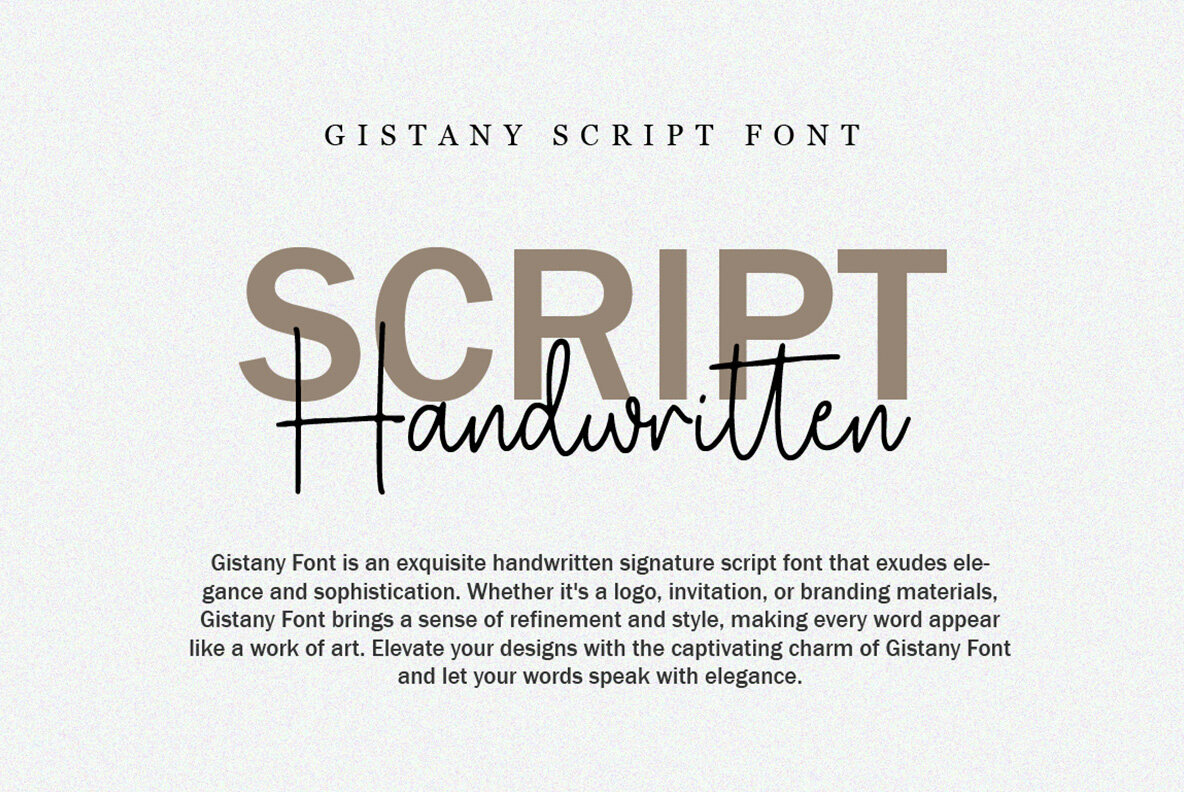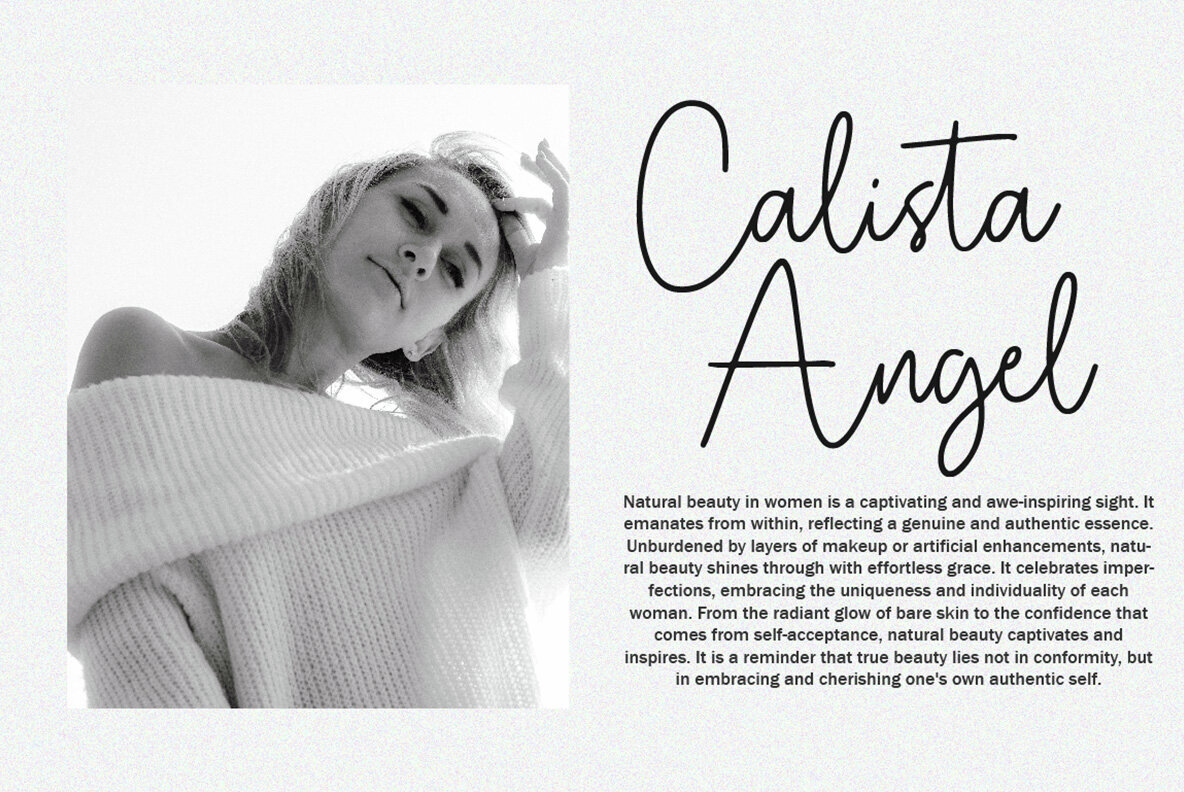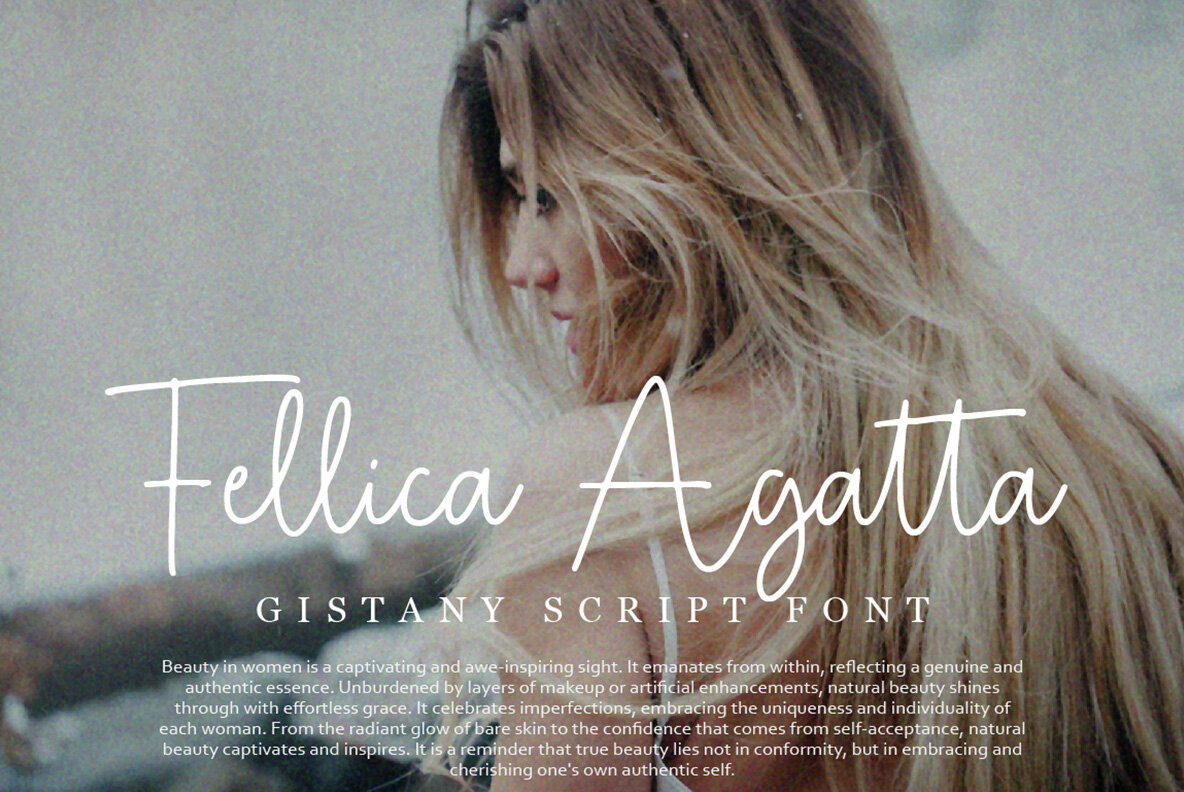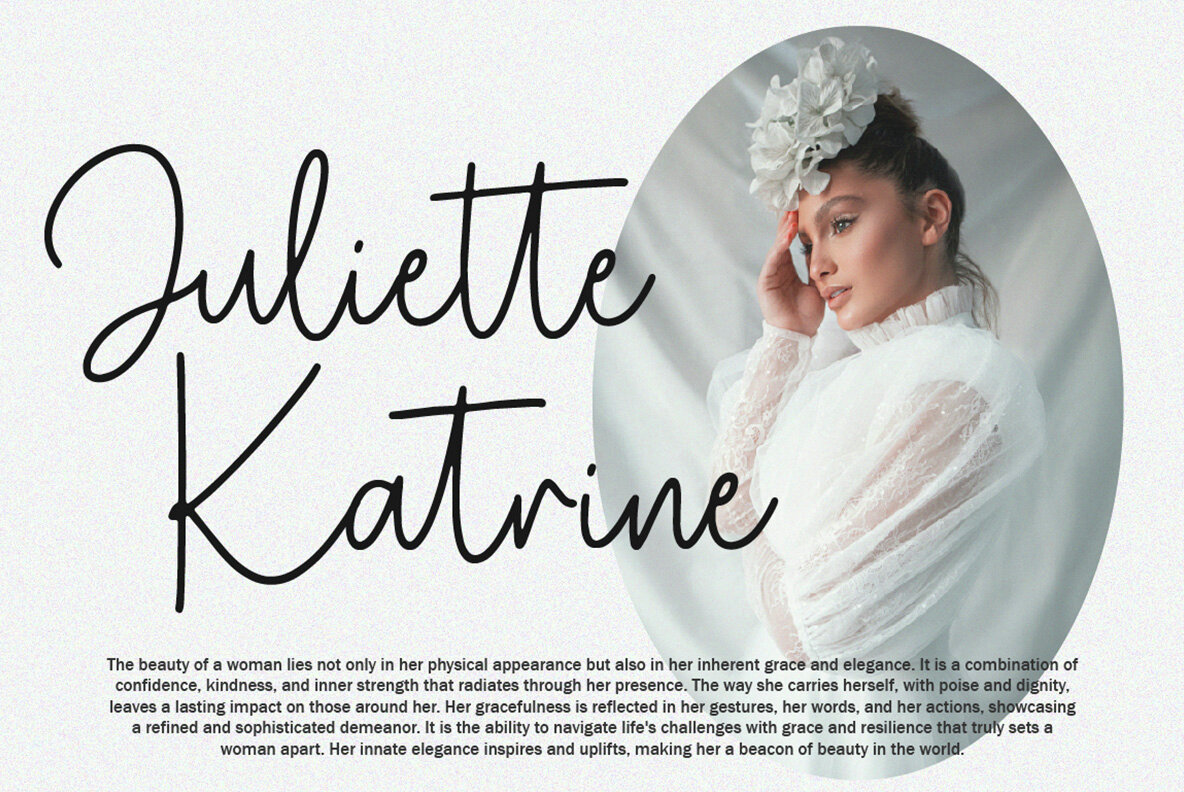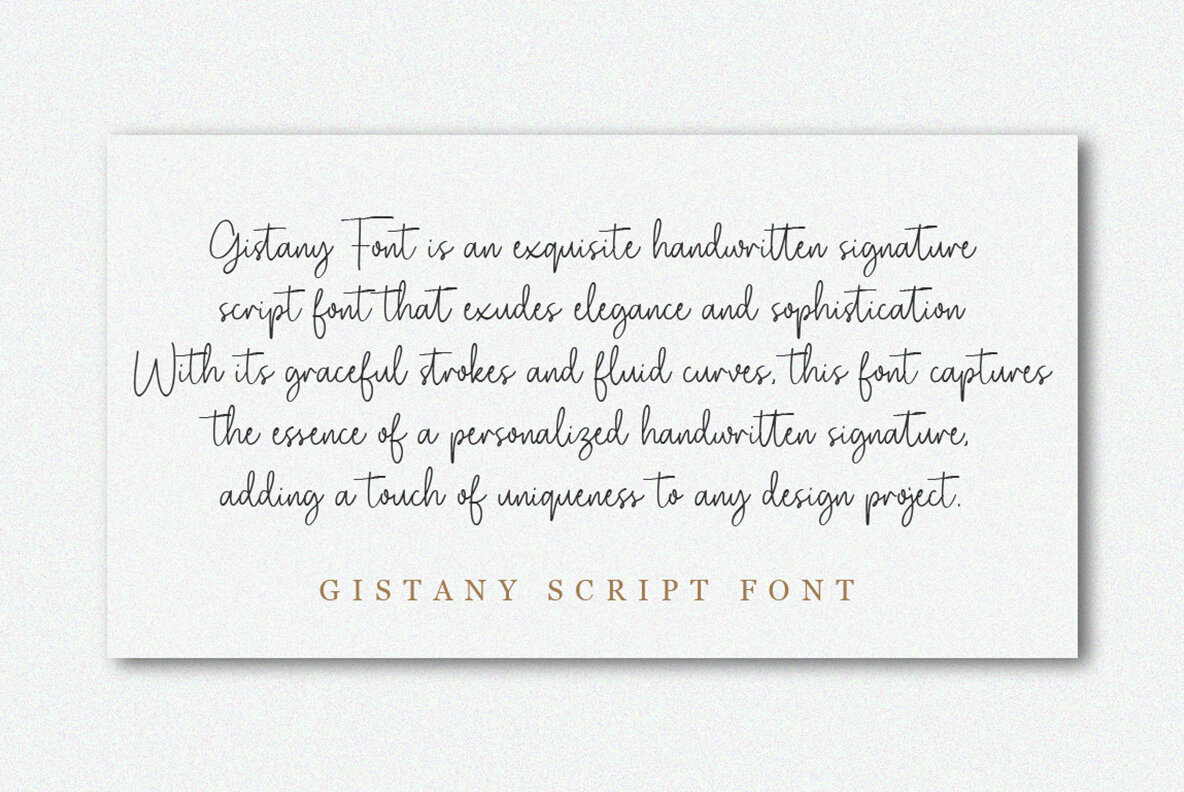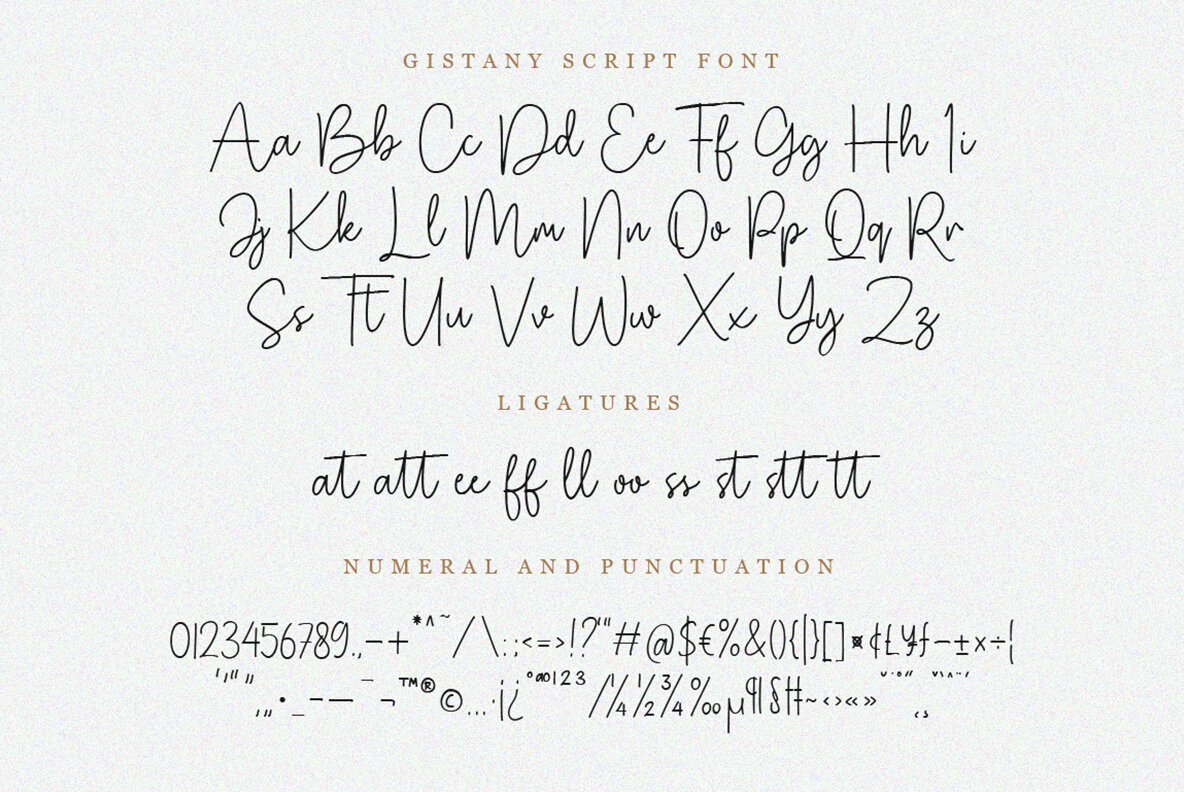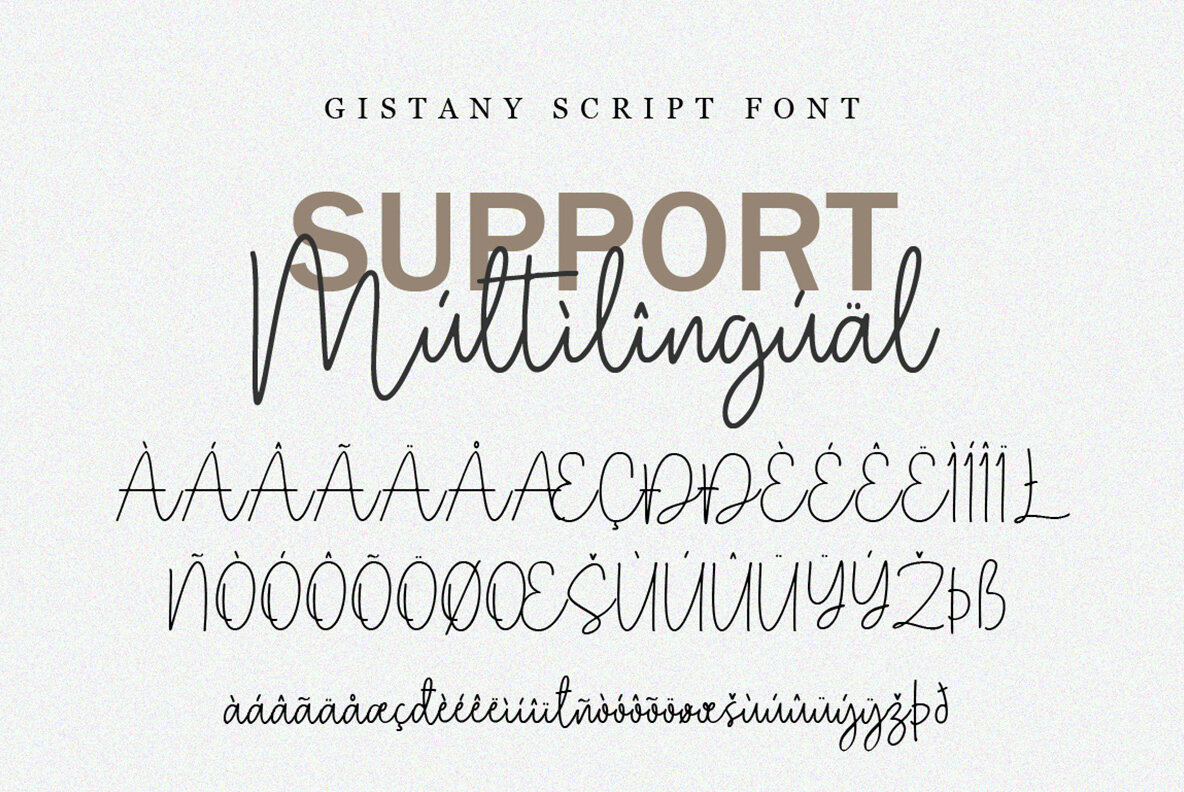
Gistany Font
Gistany Regular
Gistany Font offers a refined, handwritten signature script that epitomizes elegance and sophistication. Ideal for logos, invitations, and branding materials, this font transforms each word into a stunning work of art, adding a touch of graceful charm to your designs.Gistany Font: A Handwritten Signature Script